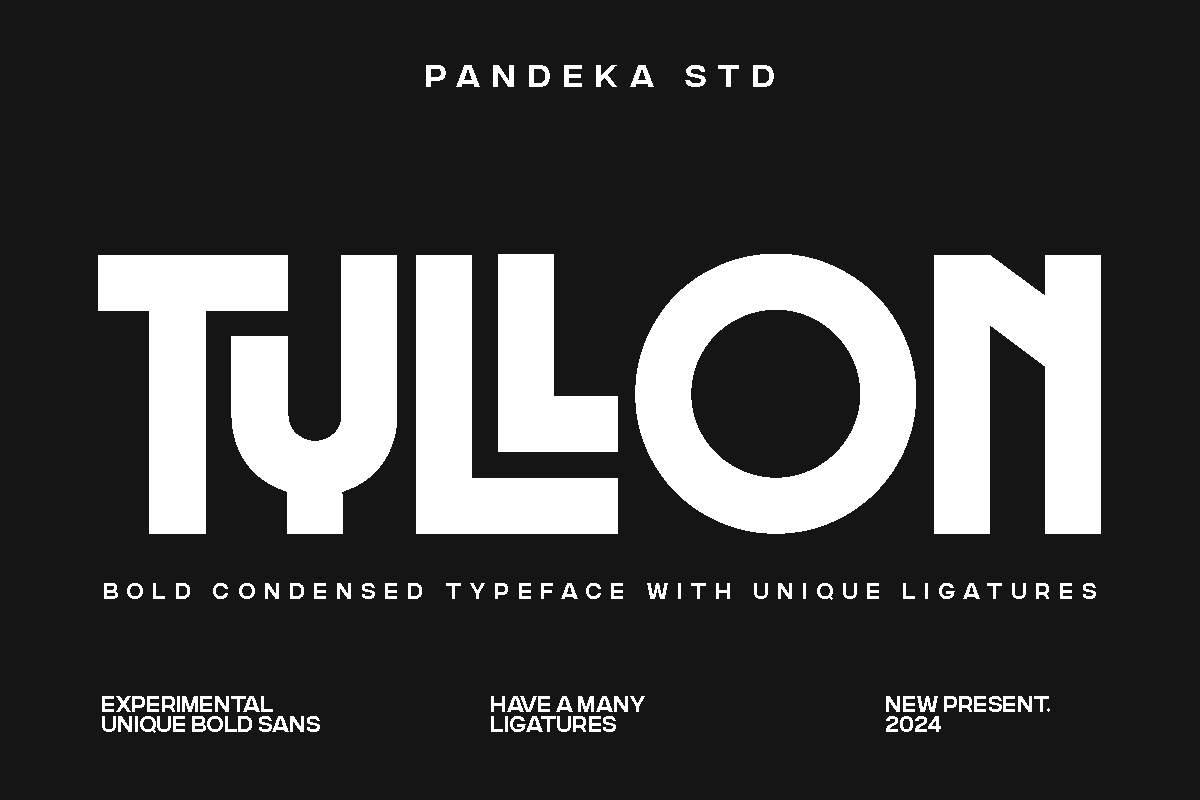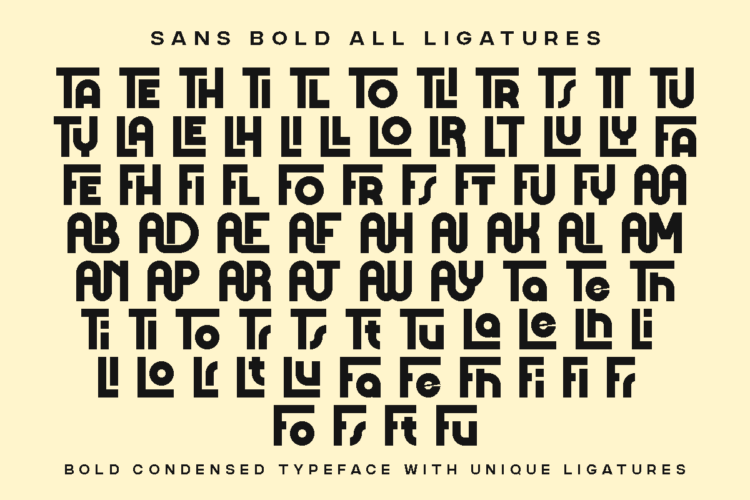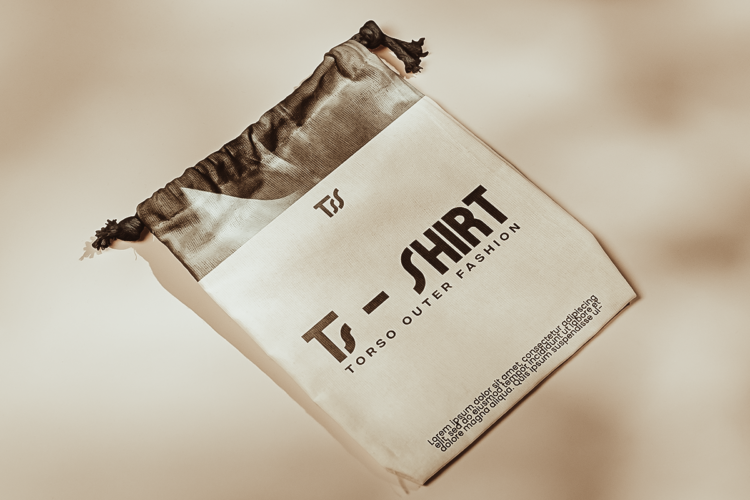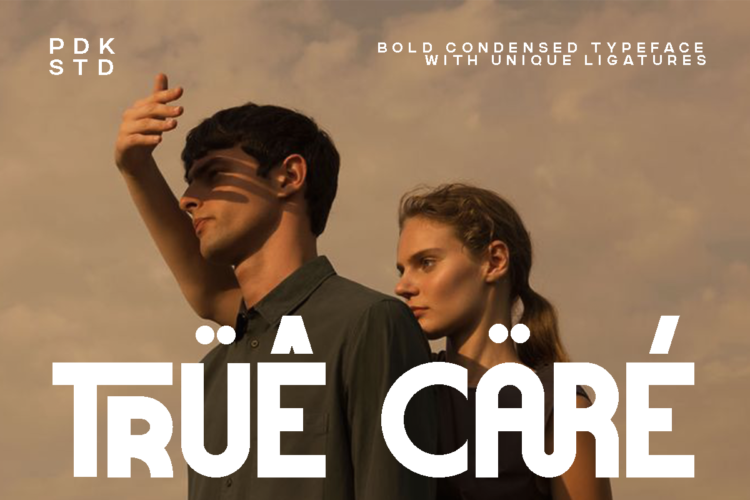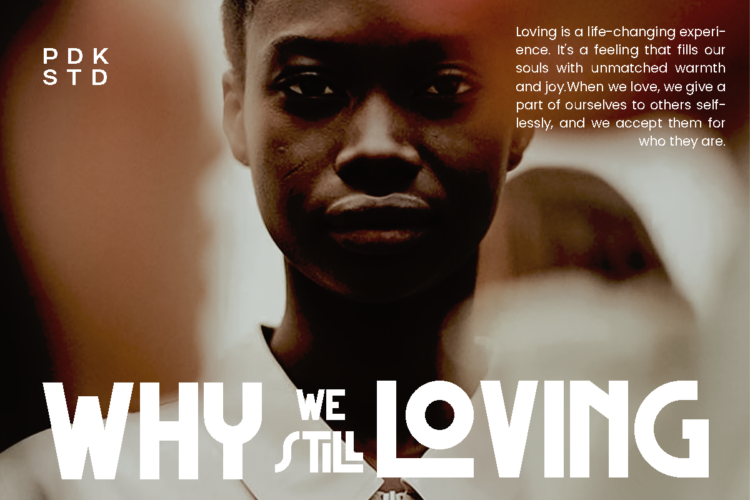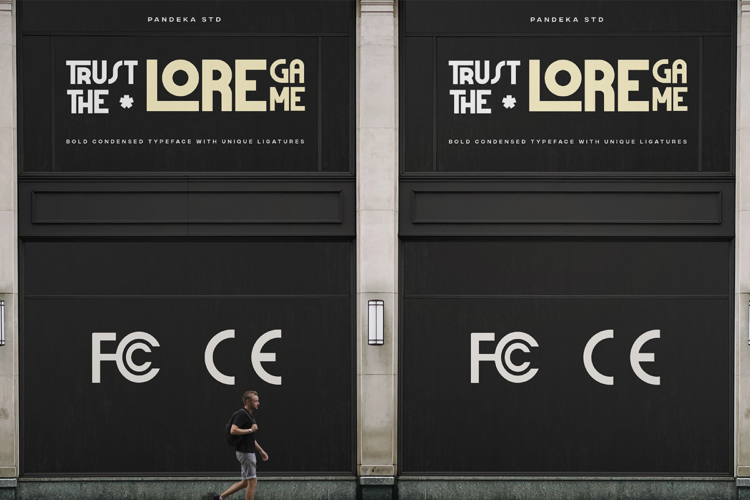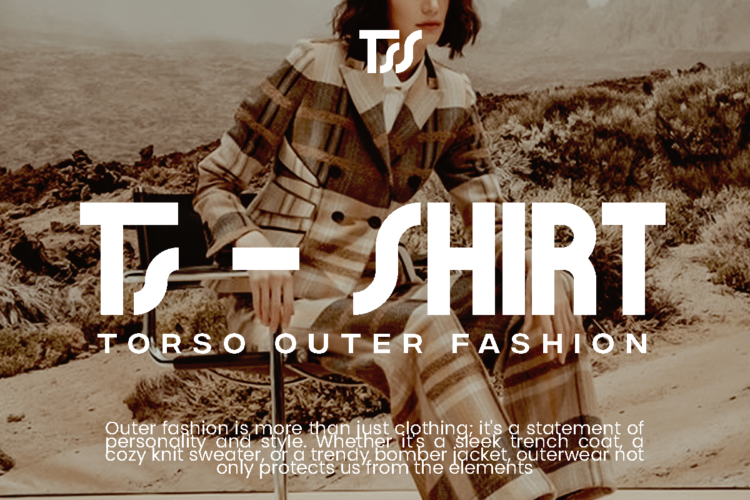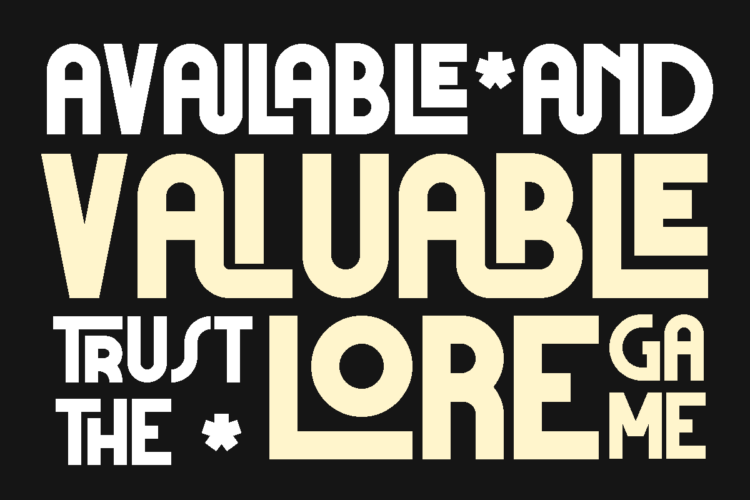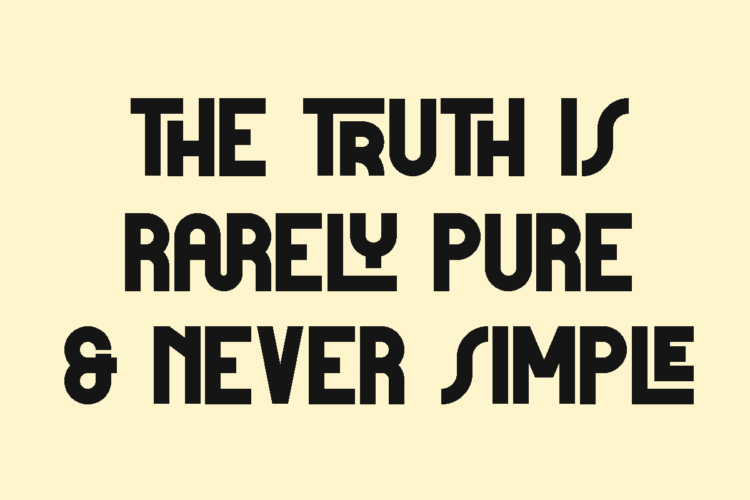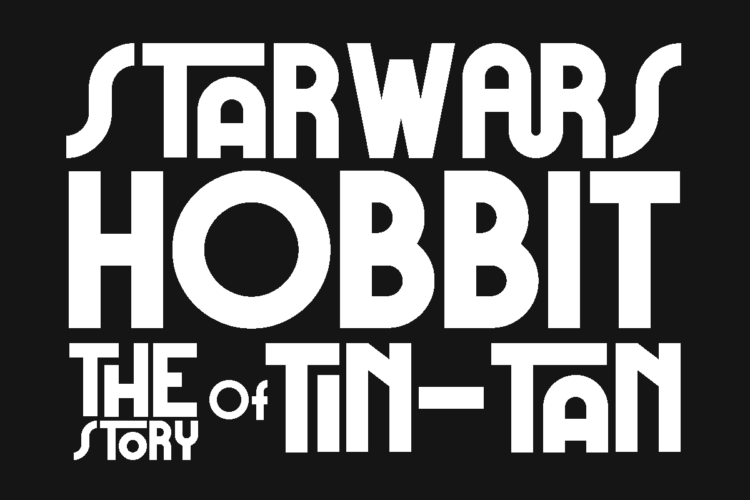
Tyllon
Tyllon is chunky strokes, sharp angles, and a commanding presence that demands to be seen. It’s got that modern, urban edge that works perfectly for cutting-edge branding, attention-grabbing headlines, and impactful social media graphics.
Tyllon have many ligatures that make your designs to the next level 😀
Features:
• Many Ligatures
Tyllon – Bold Ligature Sans Serif